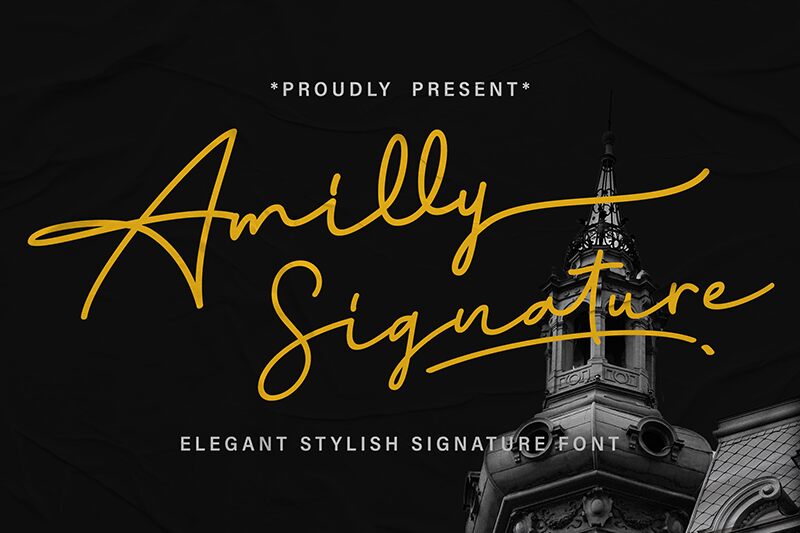
Amilly Signature, designed by MJType, is an exquisite and refined font that captures the essence of an elegant signature. With its light weight, this font exudes sophistication and grace.
Perfect for wedding invitations, high-end fashion brands, luxury beauty products, or exclusive event promotions. Its delicate strokes and fluid curves lend a touch of elegance to any project.
Elevate your designs with Amilly Signature and leave a lasting impression of sophistication and style.